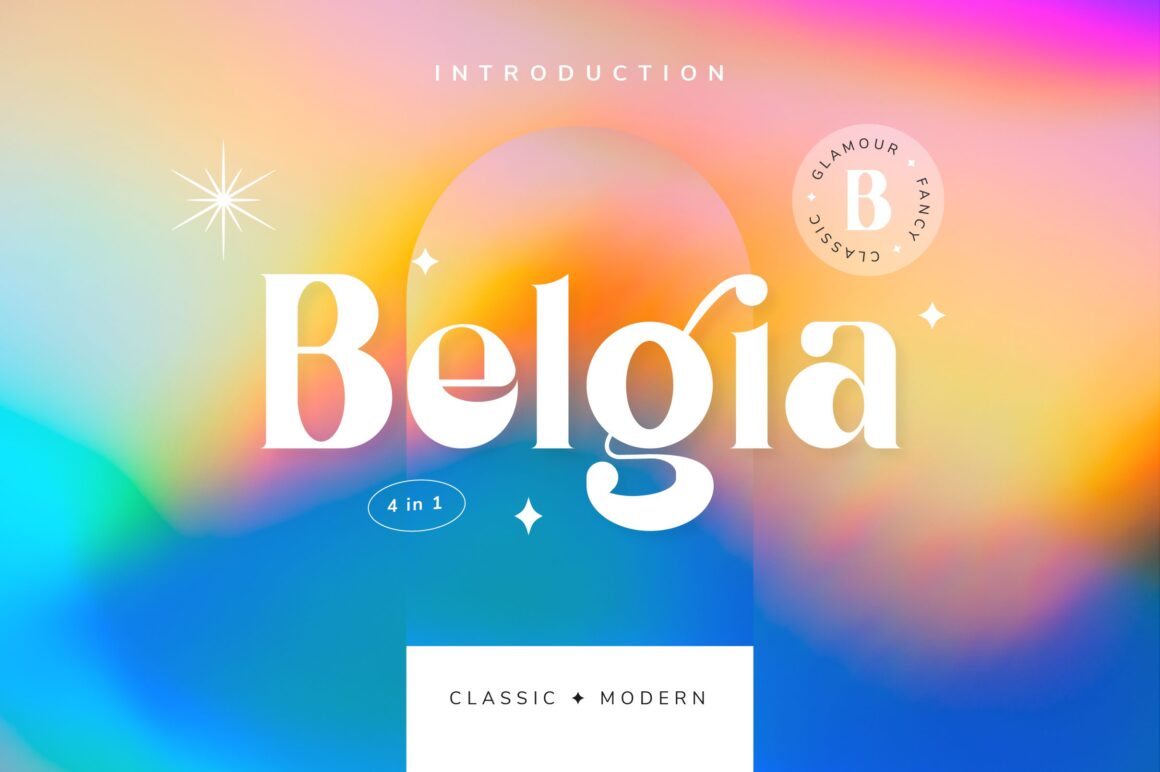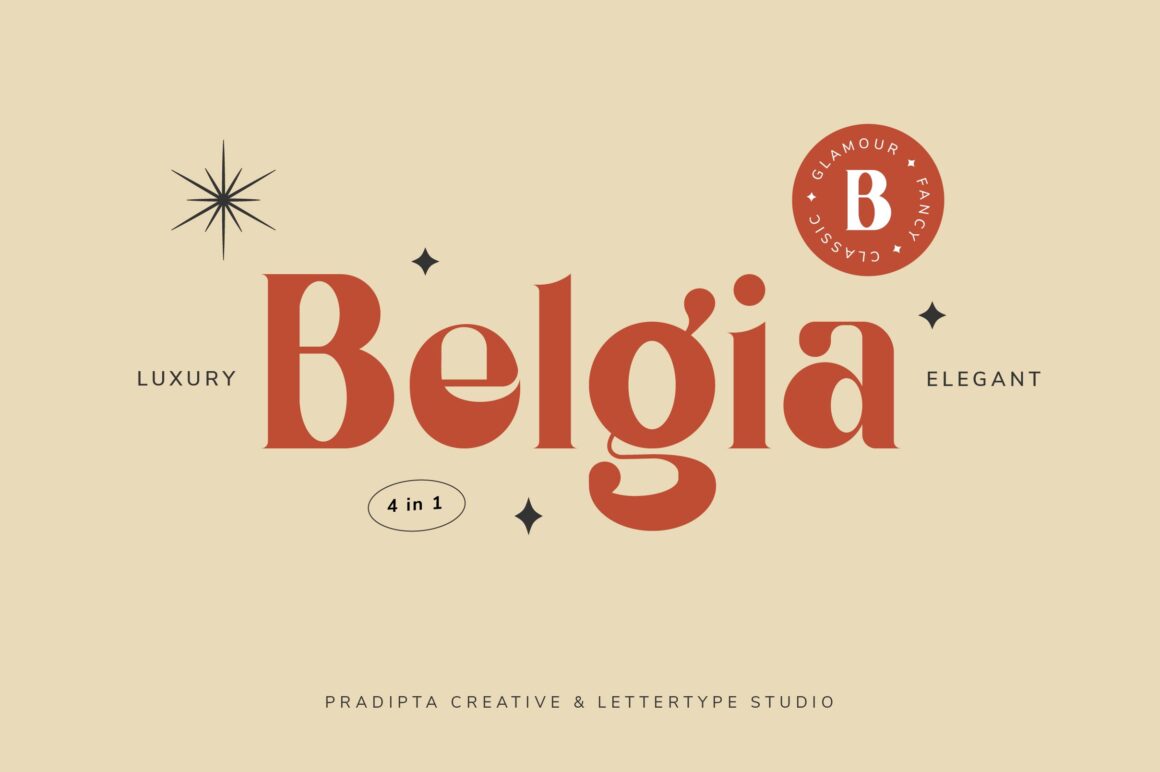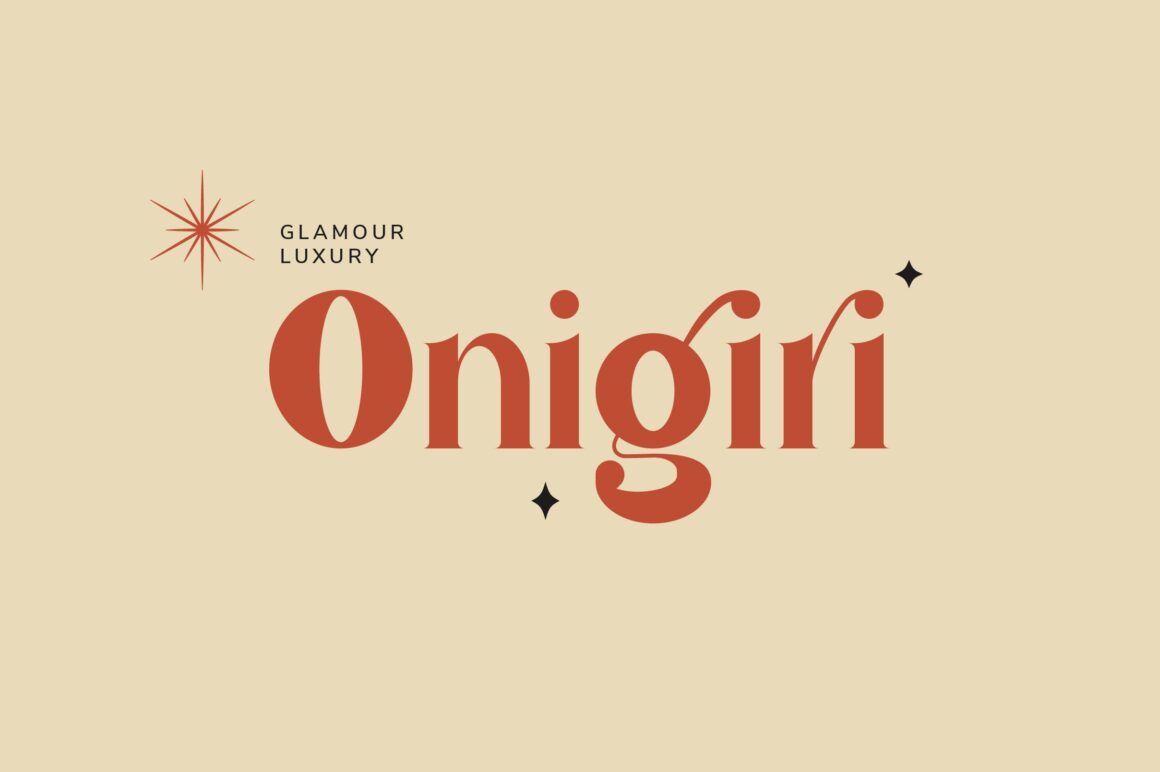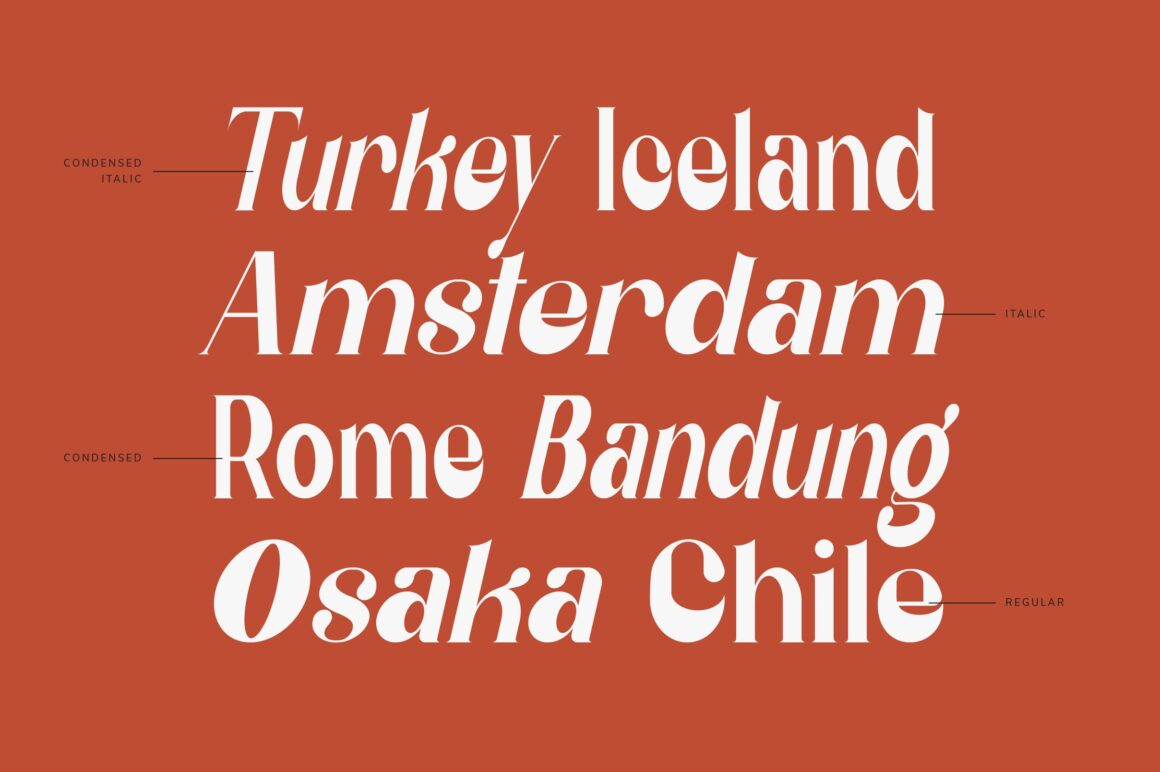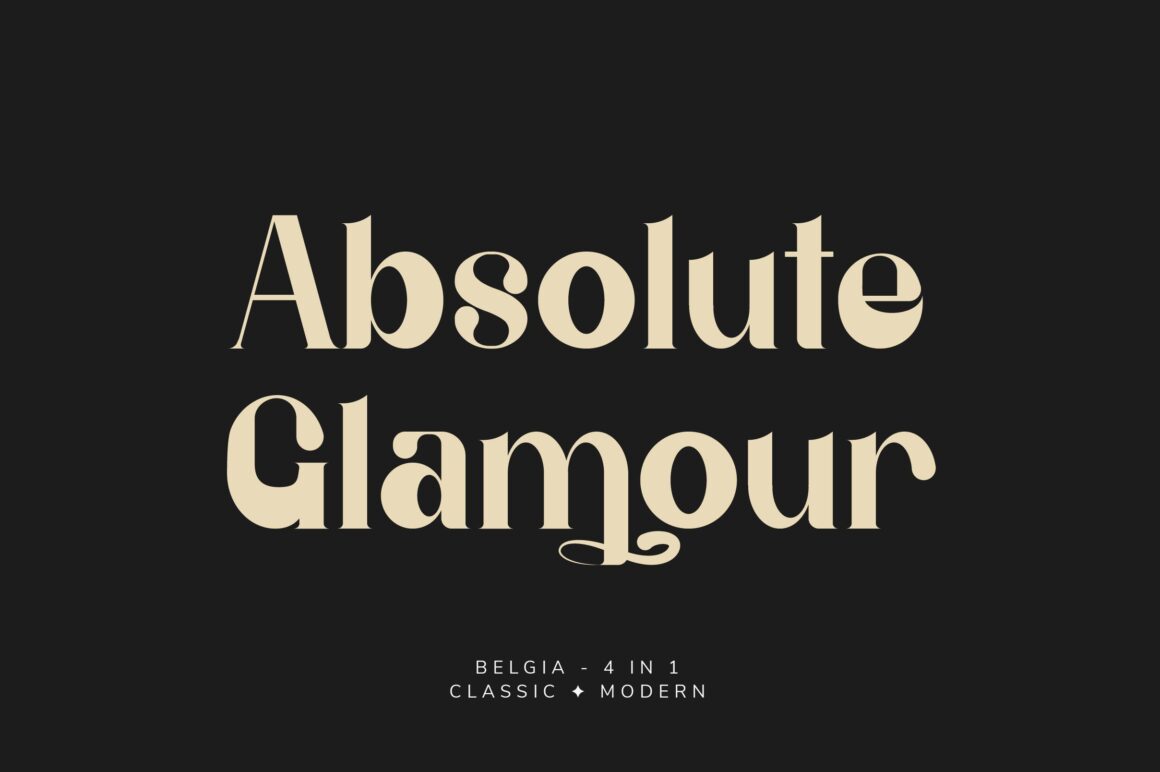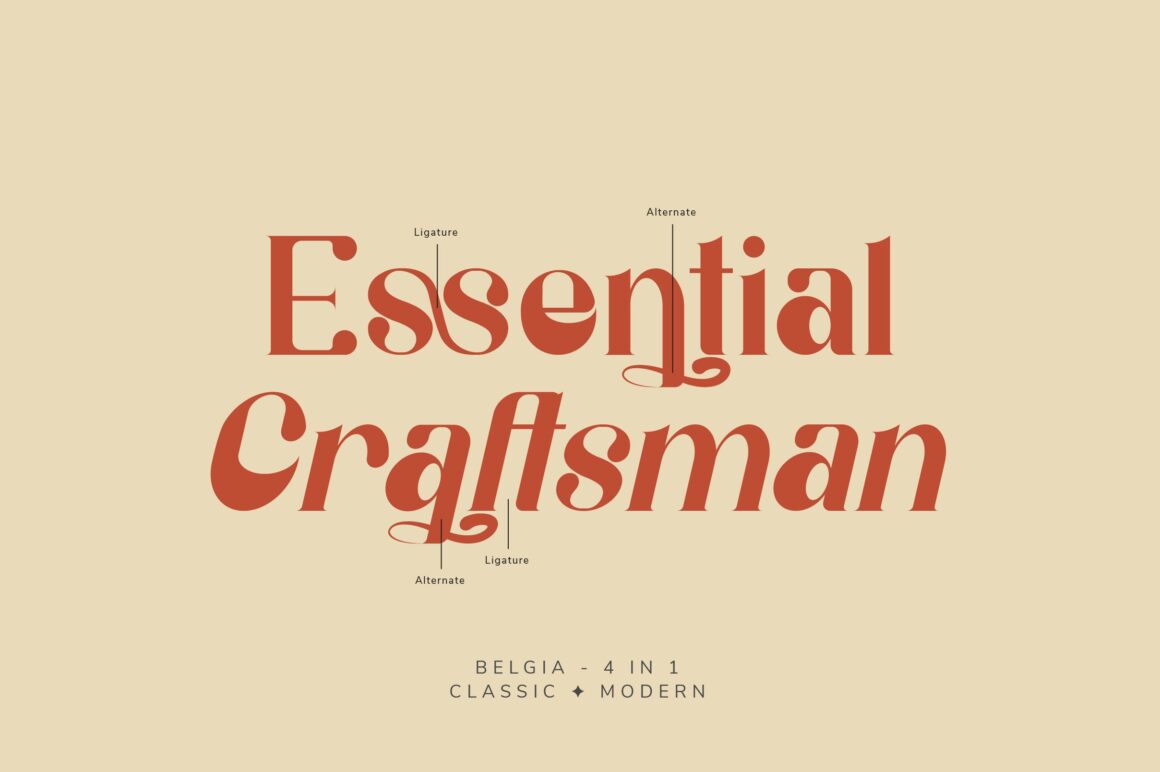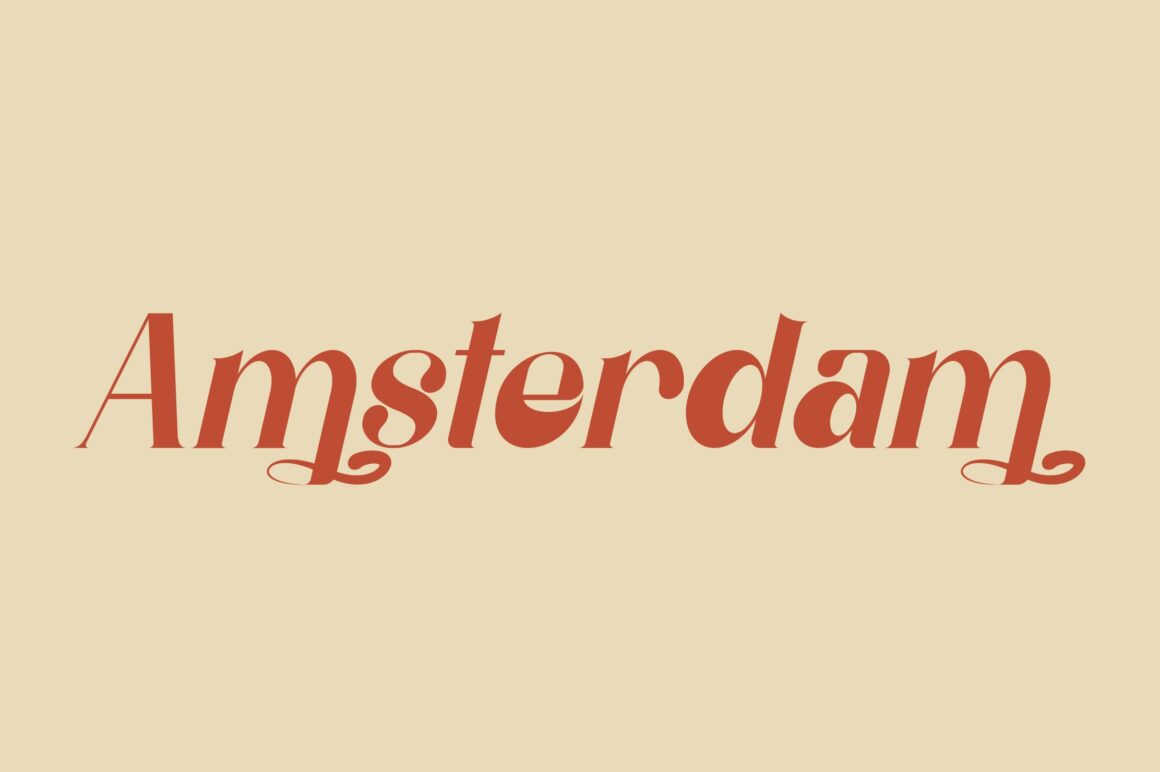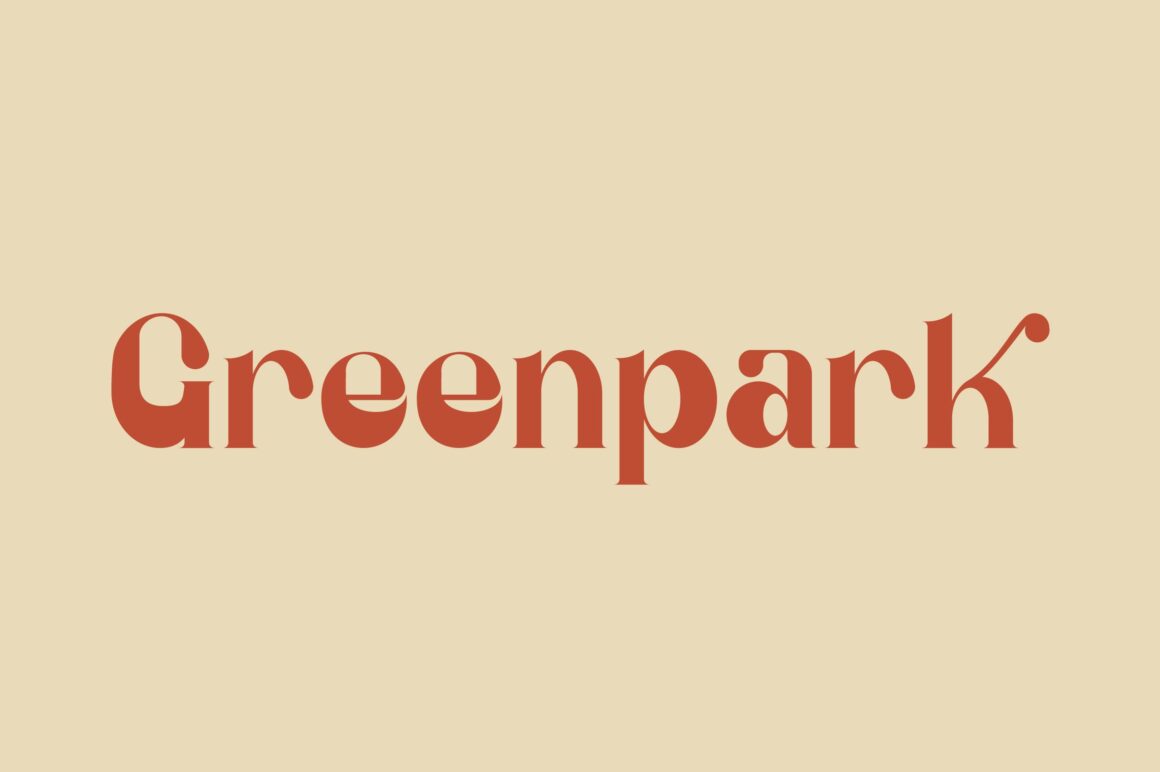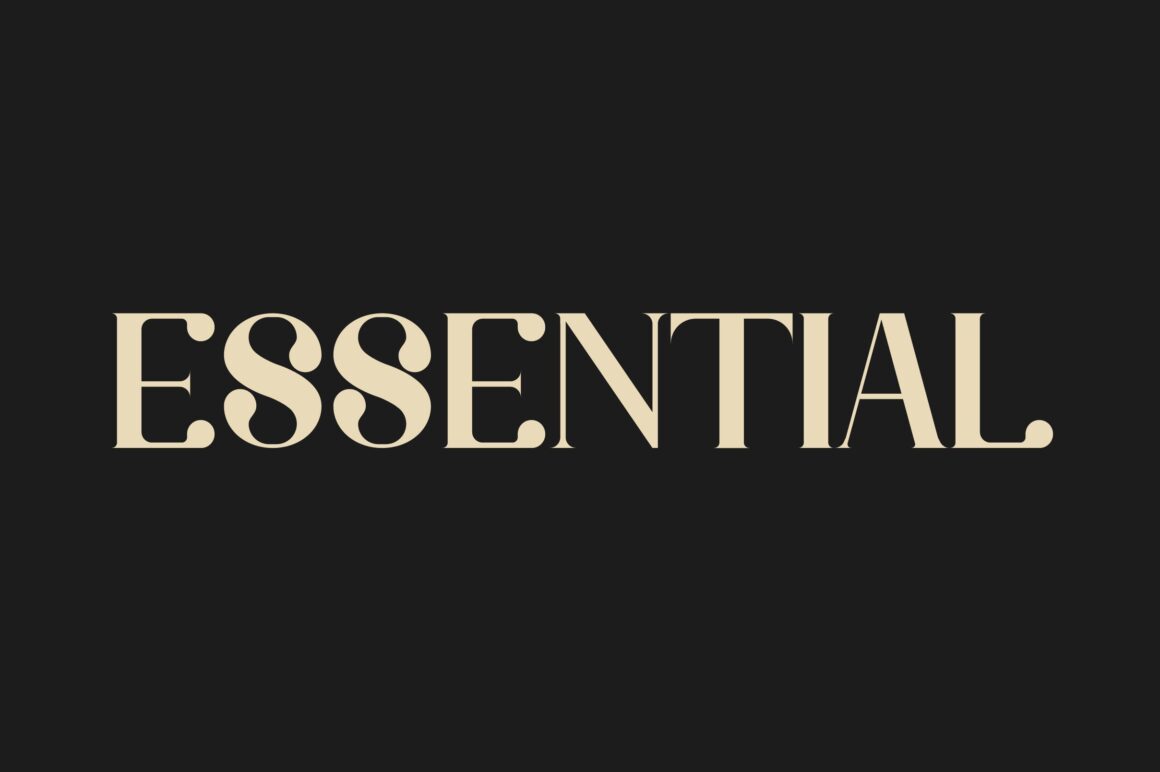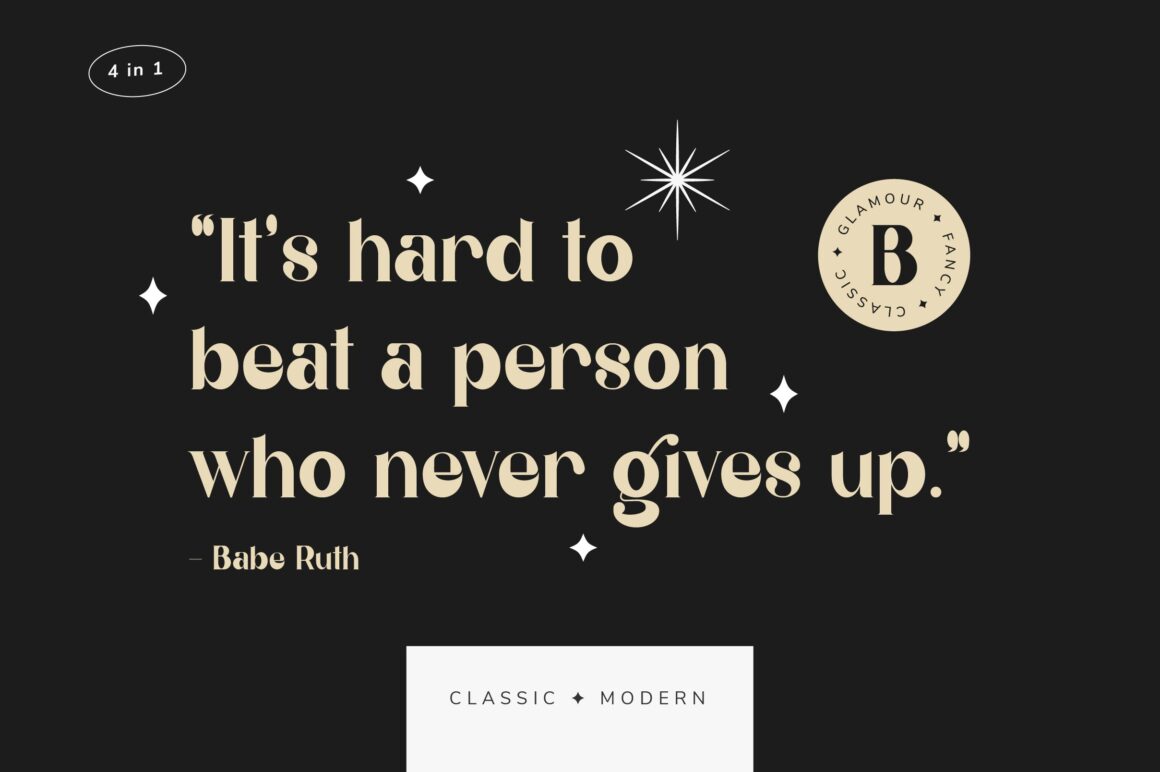
Belgia
Belgia Italic
Belgia Condensed
Belgia Condensed Italic
Belgia Serif is a glamorous and elegant typeface that combines the timeless beauty of classic serif design with a touch of modern sophistication. Its refined letterforms make it perfect for logos, branding, clothing, signage, posters, and wedding invitations, giving your work a luxurious and stylish edge.
Crafted for designers who want to elevate their projects, Belgia Serif adds charm and exclusivity to any creative work. From fashion branding to editorial layouts, this font captures both tradition and modernity, ensuring every design feels polished, graceful, and unforgettable.
Belgia Features:
• 4 Styles
• Upright & Oblique
• Stylistic Ligature